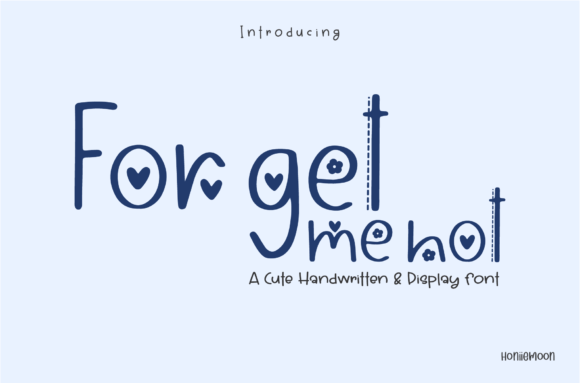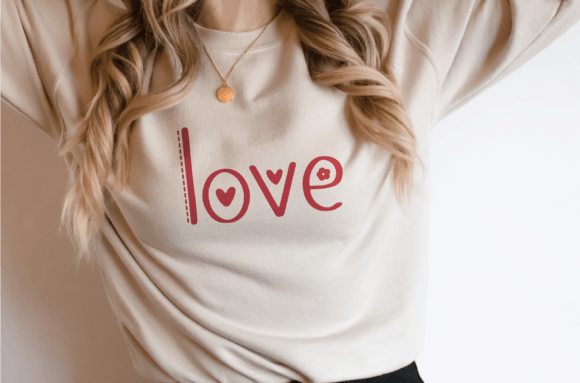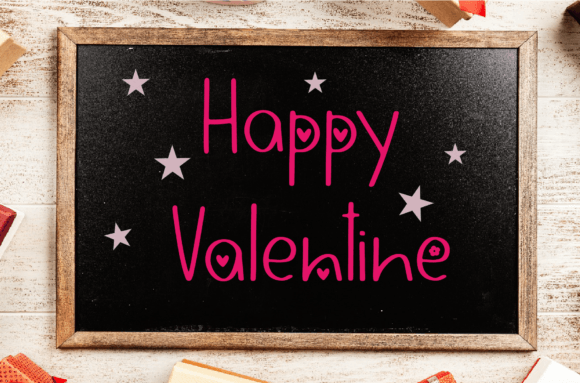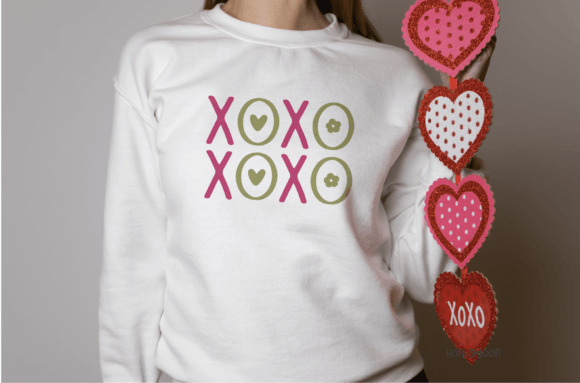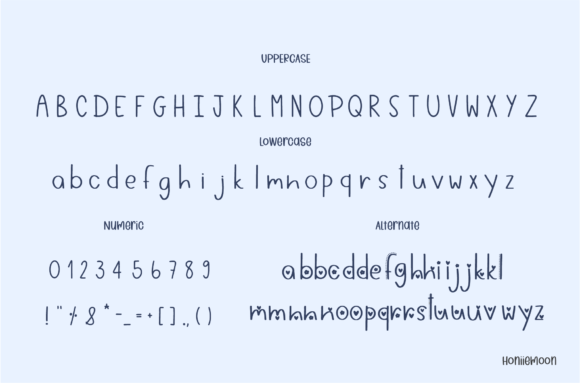
Forget Me Not Font
Add a cool and fun vibe with the Forget Me Not font. This handwritten display font is both cute and jolly. It will enhance every one of your designs with its colorful and bold style. The only limit is your imagination!
The Forget Me Not font is perfect for a wide range of creative projects. Whether you’re working on posters, social media graphics, greeting cards, logos, or branding, this font brings life and energy to your work.
Each character is designed with playful strokes and lively details. This creates a vibrant and dynamic look. The font balances boldness with legibility, making it ideal for eye-catching titles, quotes, and decorative text.
This font is PUA encoded, which means you can easily access all the glyphs and lovely alternates. This gives you extra creative freedom to customize your text and add unique flair to your designs.
Despite its bold and colorful style, the Forget Me Not font remains readable at various sizes. Whether used for big headlines or smaller accents, it adapts beautifully. Its versatility makes it a great choice for many creative projects.
Using this font will help your designs stand out with a fun and memorable style. If you want your work to look vibrant and unique, the Forget Me Not font is an excellent choice.
In summary, the Forget Me Not font fits many creative needs. From branding and posters to social media and greeting cards, it brings energy and charm. Download it today and create stunning, colorful designs with a fun handwritten display font.